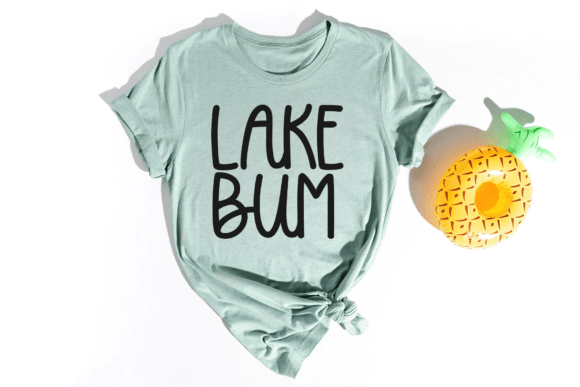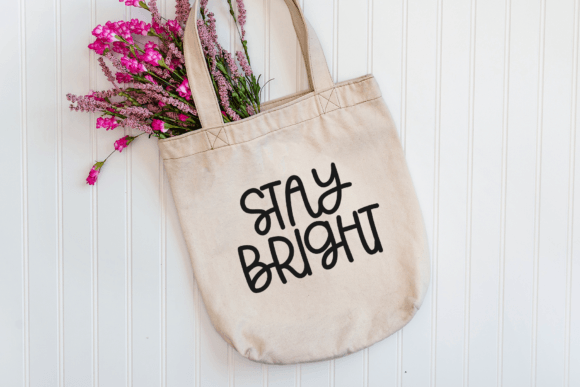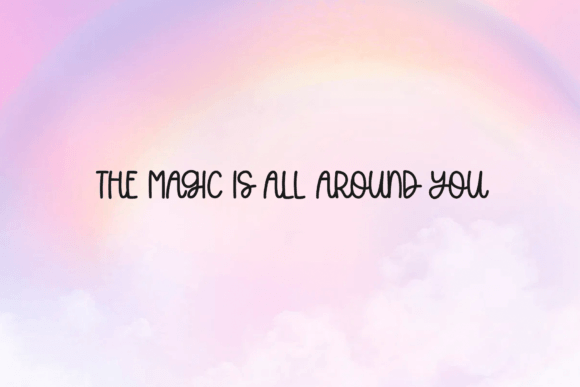
Introduction to Dream House Font
Dream House is a fun handwritten display font with a lot of fun style.
This font is sure to make your designs pop It is great for all crafters and designers.
Key Features of Dream House Font